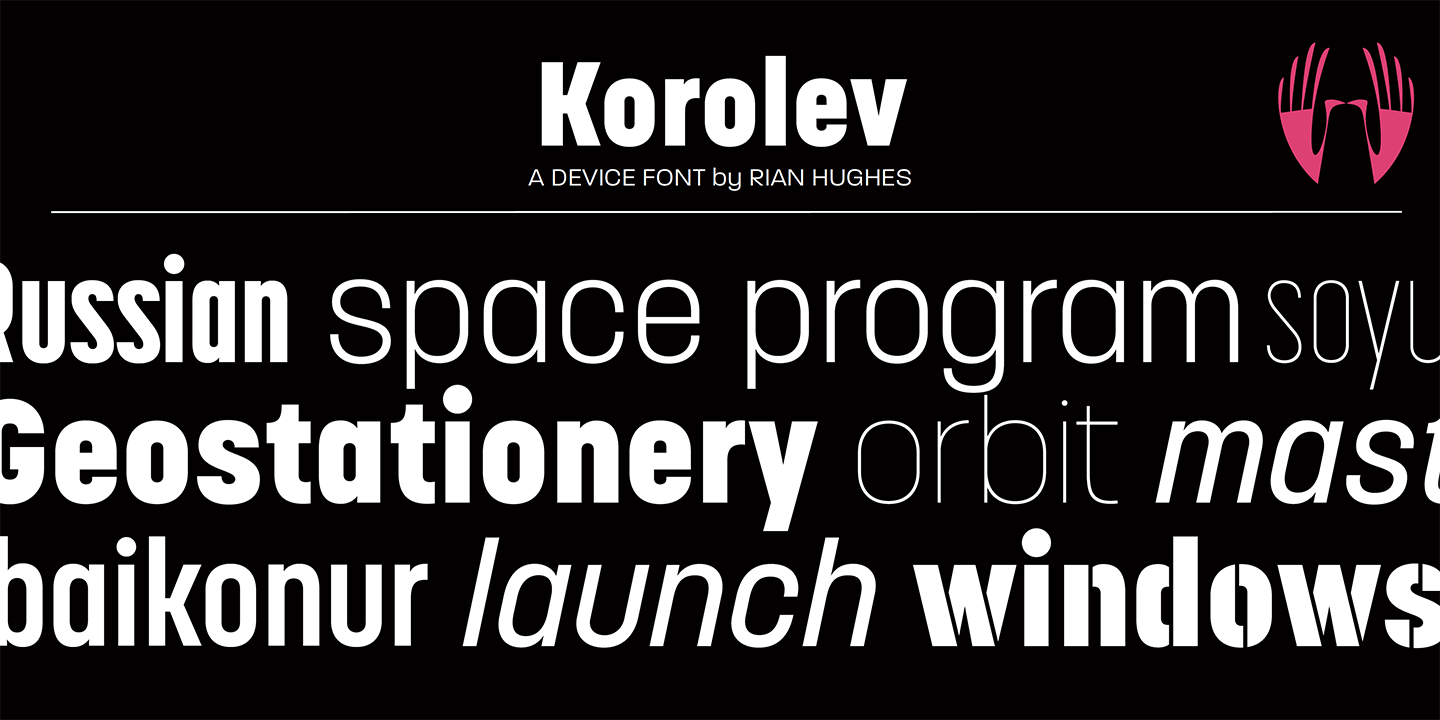
Korolev Font Free Download presents designers with a space-age typeface that embodies cosmic exploration and futuristic sophistication with scientific precision. However, for commercial use, you must purchase this font. You can download it for free for testing purposes only.
Korolev Font excels in cutting-edge design applications including aerospace industry branding, space exploration presentations, science fiction movie posters, planetarium exhibits, rocket technology materials, astronomical observatory signage, space mission documentation, futuristic product packaging, sci-fi gaming interfaces, and innovative technology startups. This stellar typeface brings cosmic authority to forward-thinking projects.
What makes Korolev Font truly exciting is its perfect capture of Soviet space program aesthetics with contemporary design refinement that evokes the golden age of space exploration. The font features bold, engineered letterforms with angular precision and technical characteristics that reflect spacecraft instrumentation and mission control typography. Its authoritative presence and space-age character make it ideal for brands operating in aerospace, advanced technology, and scientific research sectors seeking to convey expertise and innovation.
The Korolev Font family typically includes Regular, Bold, and potentially Condensed weights with technical character variations. These comprehensive options provide designers with authentic space-age styling while maintaining excellent readability for both scientific documentation and commercial applications across various media formats.
Whether you're developing aerospace branding, creating space-themed campaigns, or designing scientific technology materials, Korolev Font Free Download delivers the cosmic authenticity and technical sophistication that space-age projects require. Its exceptional character and stellar presence make it invaluable for designers seeking to create memorable, scientifically-inspired designs that honor space exploration heritage while embracing the limitless possibilities of cosmic discovery and technological advancement.